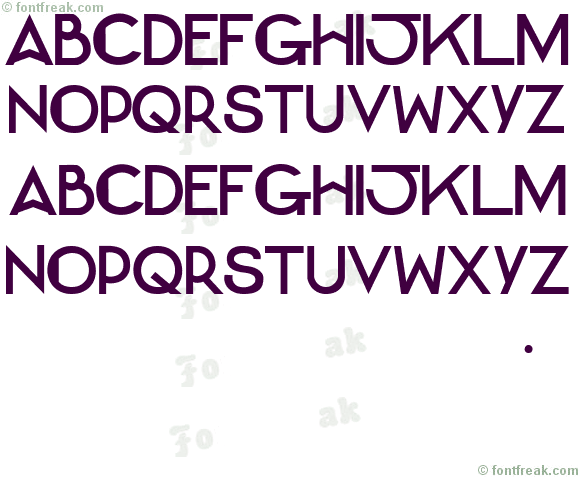
Bernadette [Caps]
About Bernadette [Caps]
Bernadette [Caps] by Fie Clarke is a striking display font that falls under the category of decorative typefaces. This font is characterized by its bold, uppercase letters that exude a sense of elegance combined with contemporary flair. The stroke weight is consistent, providing a sturdy presence, while the lack of intricate embellishments allows for versatility in use. The clean lines and well-balanced spacing enable the font to stand out without overwhelming the viewer, making it suitable for various applications.
Ideal for wedding invitations, Bernadette [Caps] brings a touch of sophistication to any event, allowing couples to announce their special day with style. It works equally well on restaurant menus, where it can be used to highlight featured dishes or create an inviting atmosphere. Additionally, this font lends itself to movie posters, providing a bold title treatment that captures attention and conveys the film's essence. Graphic designers looking for a unique typeface for branding projects will find Bernadette [Caps] to be a valuable asset, as it adds a modern twist to logos and promotional materials.
What sets Bernadette [Caps] apart is its seamless blend of modern aesthetics with usability. This font not only commands attention but also maintains legibility, making it a perfect choice for projects that require a bold statement without sacrificing clarity. For anyone in search of a standout typeface, the Bernadette [Caps] font free download is an opportunity not to be missed.